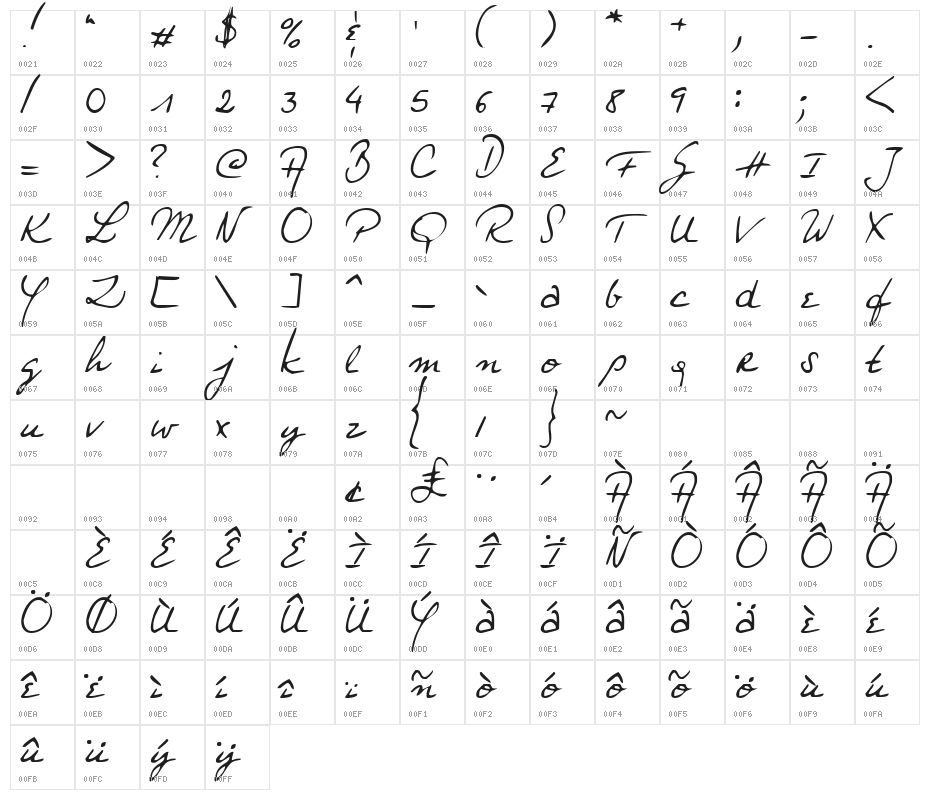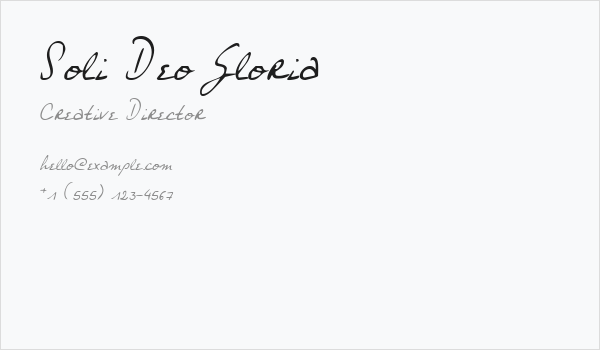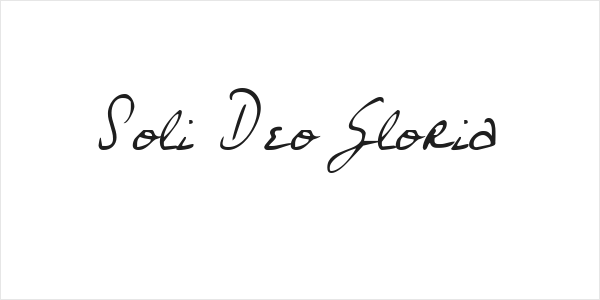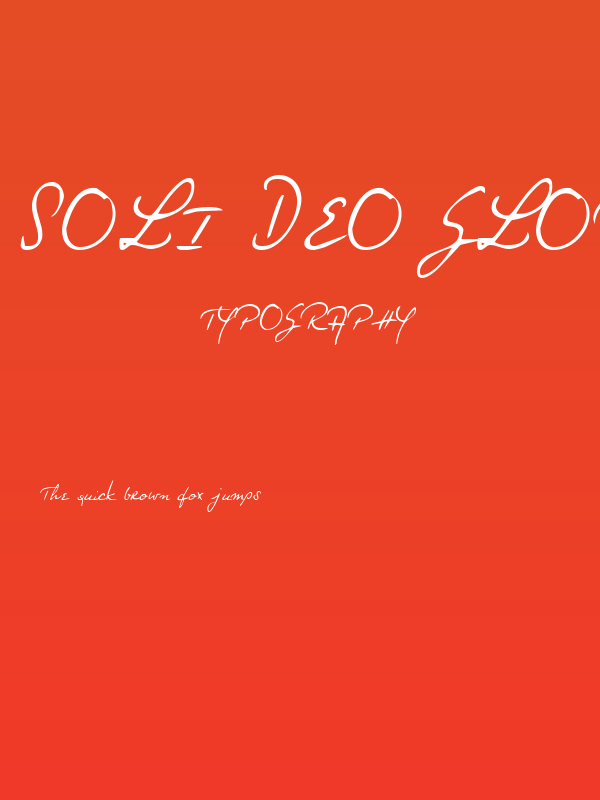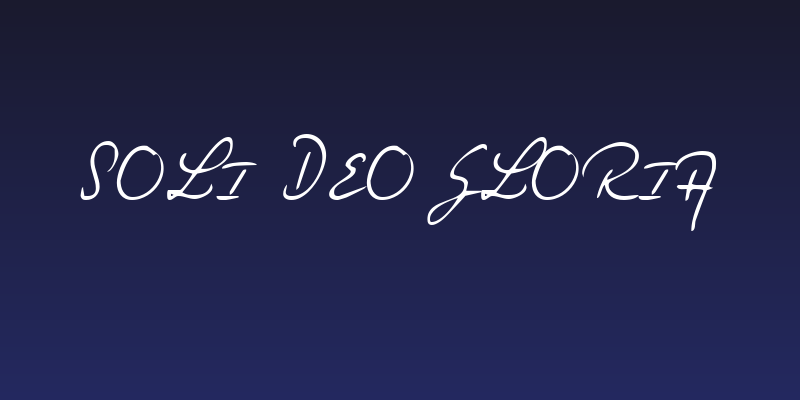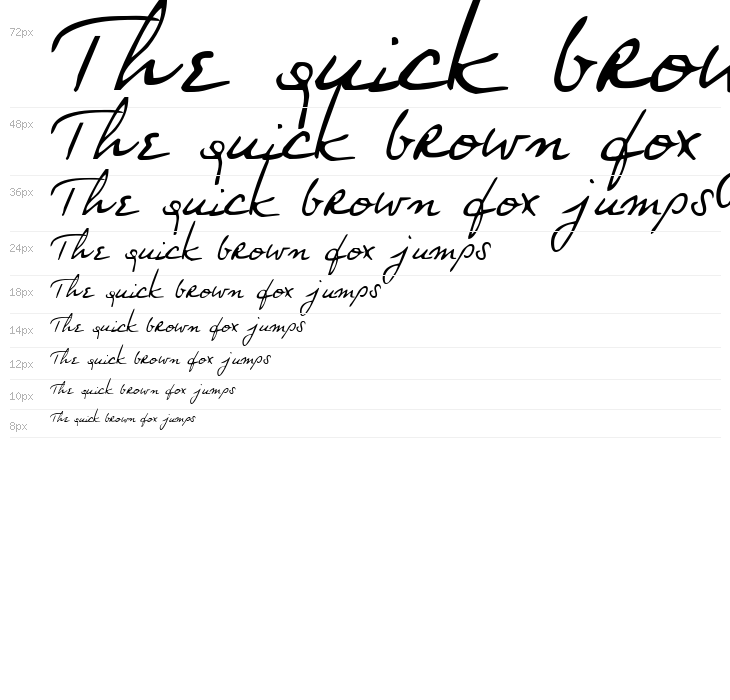
Soli Deo Gloria Font
Soli Deo Gloria Description
This font exudes a dynamic and fluid style, characterized by its cursive and handwritten appearance. The letters are connected, creating a seamless flow that mimics natural handwriting. The strokes vary in thickness, adding a lively and personal touch. The uppercase letters maintain a consistent height, while the lowercase letters exhibit a playful bounce, enhancing the font's expressive nature. The numerals and special characters are crafted with the same attention to detail, ensuring uniformity across all elements. This font is ideal for projects that require a personal, informal, or artistic touch.
| Proposed Projects | Ideal for invitations, greeting cards, personal branding, and artistic projects. |